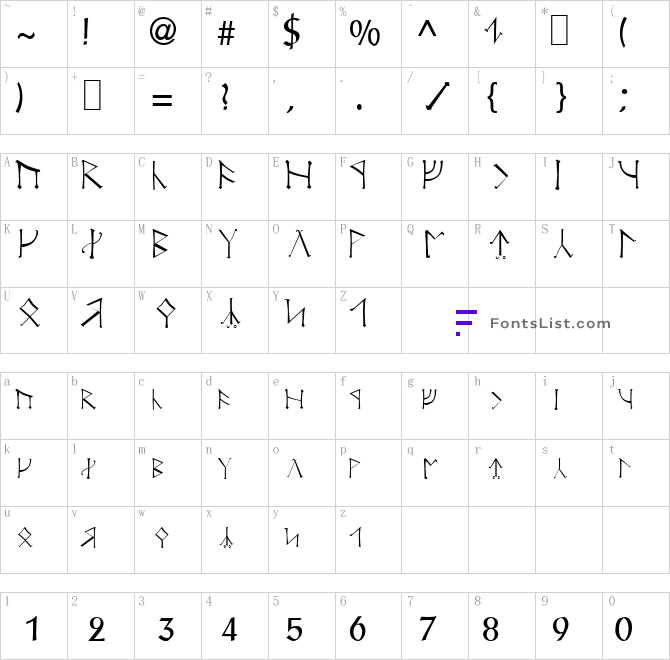
- Font Name:Angerthas Moria
Angerthas-Moria-copy-3-.ttf is a very beautiful artistic font, Angerthas-Moria-copy-3-.ttf is widely used in the design and printing of various books and pictures,Angerthas-Moria-copy-3-.ttf has a strong visual impact,Angerthas-Moria-copy-3-.ttf is a commonly used font in newspapers, magazines and books, and is used in posters, e-commerce Poster design, store design, logo design, font design and other fields.Angerthas-Moria-copy-3-.